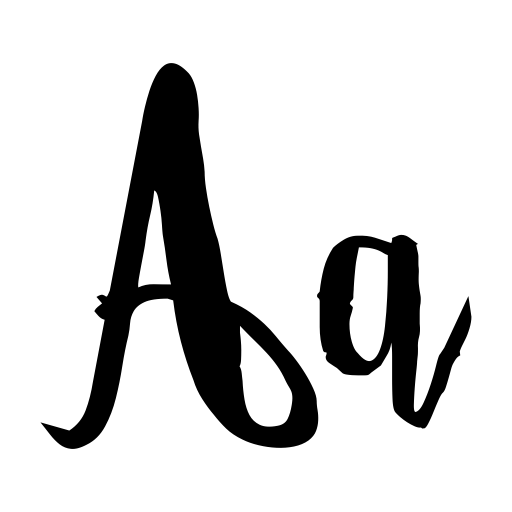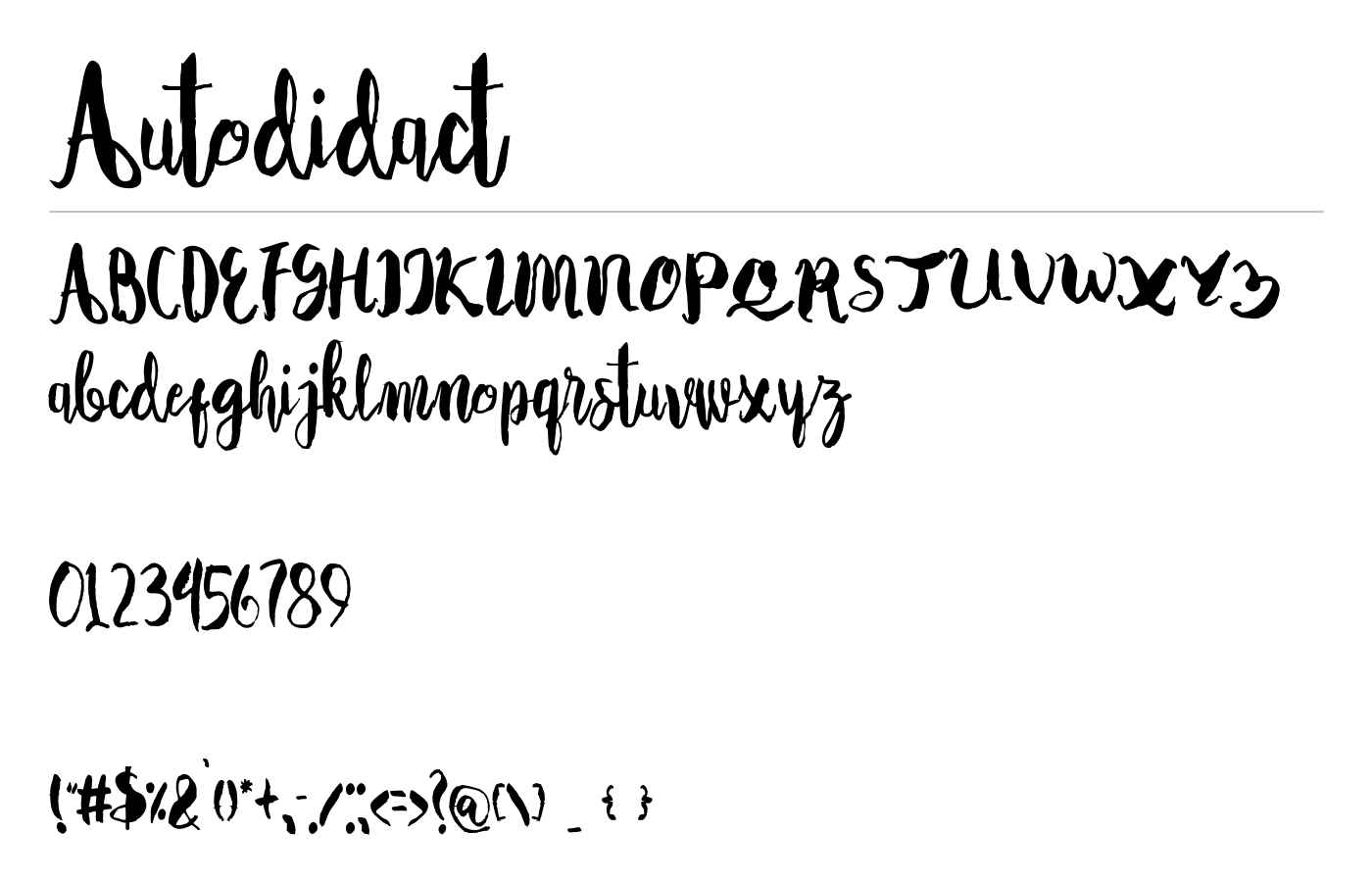
Autodidact is a lively script font with a handcrafted feel, featuring irregular and expressive strokes that mimic brush lettering. Its tall, narrow letterforms and playful curves give it a creative and informal personality, making it ideal for artistic branding, casual invitations, and eye-catching headlines. This font works well in projects seeking a unique, personal touch that stands out with charm and character.
Autodidact Font
About Autodidact Font
| Font family | Autodidact Font |
| Designer | Famco Typefoundry |